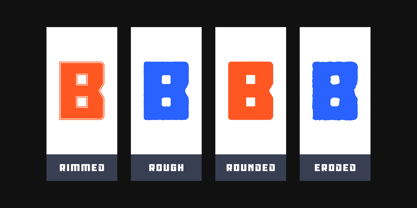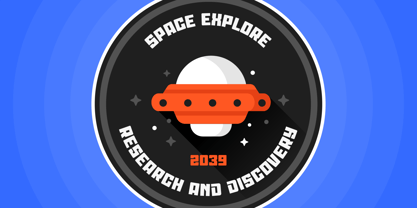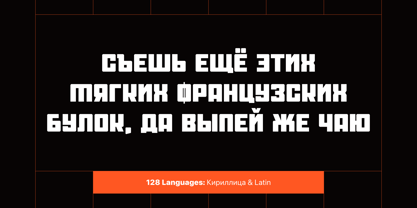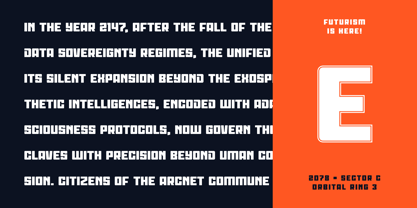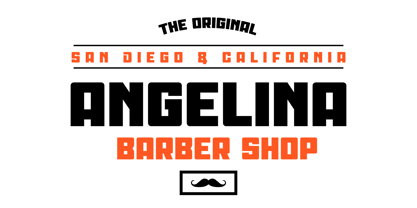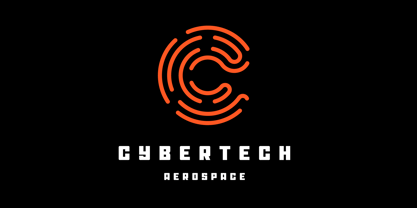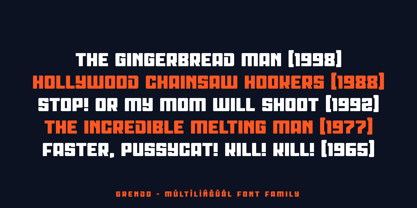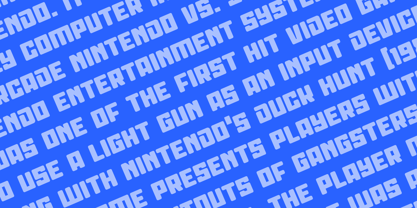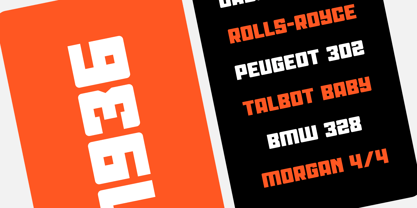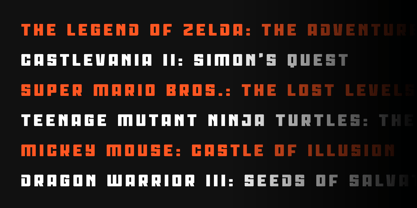
Grendo
by AlperCakici
The Grendo Font Family was designed by Alper Çakıcı and published by AlperCakici. Grendo contains 58 styles and family package options. More about this family
Meet Grendo, a powerful rounded display type family designed for designers who want futuristic energy with maximum versatility. Blending smooth rounded forms with sharp technical cuts and stencil-inspired construction, Grendo delivers a distinctive sci-fi aesthetic that feels both bold and modern. With 58 meticulously crafted styles, Grendo ranges from clean and confident to rough, brushed, eroded, and experimental. Whether you’re designing game titles, high-tech branding, cinematic posters, UI interfaces, or expressive digital artwork, Grendo gives you a unified system to explore countless visual moods. Why Choose Grendo? 58 Styles Included Regular, Italic, Angular, Circular, Rounded, Brush, Inline, Outline, Rimmed, Pencil, Noise, Rough, Eroded — with italic counterparts across the family. Rounded Futuristic DNA Smooth curves combined with engineered stencil cuts create a bold, forward-looking character. Highly Versatile System Ideal for branding, gaming, posters, motion graphics, sci-fi titles, UI/UX, product design, and experimental typography. Optimized Performance Clean spacing and balanced forms ensure clarity across print, digital, and large-scale displays. Global Language Support Supports 128 languages with extended Latin and Cyrillic coverage.
Designers: Alper Çakıcı
Foundry: AlperCakici